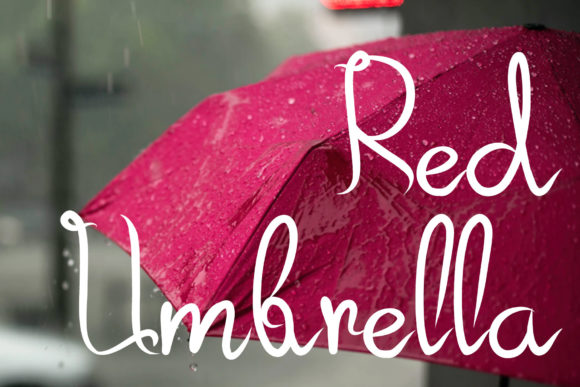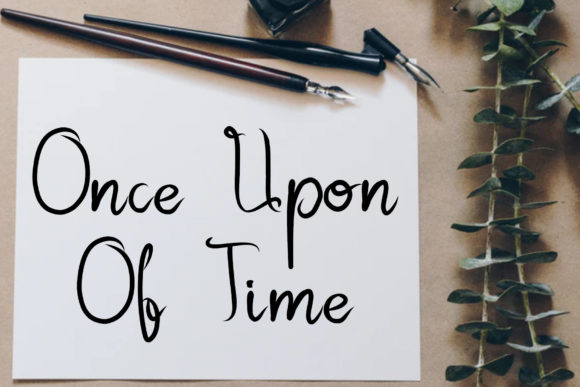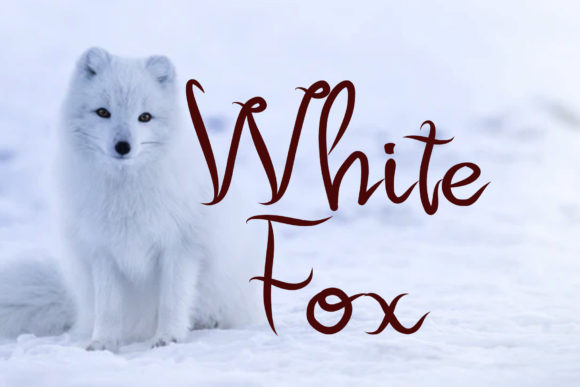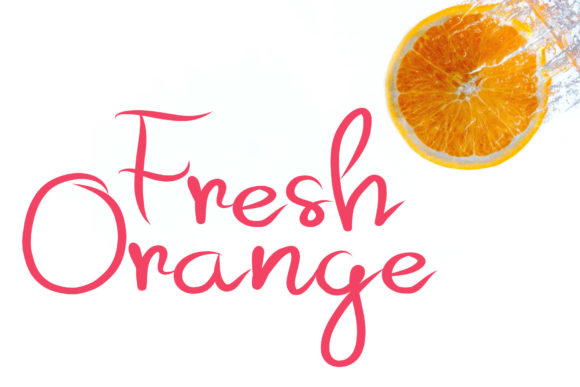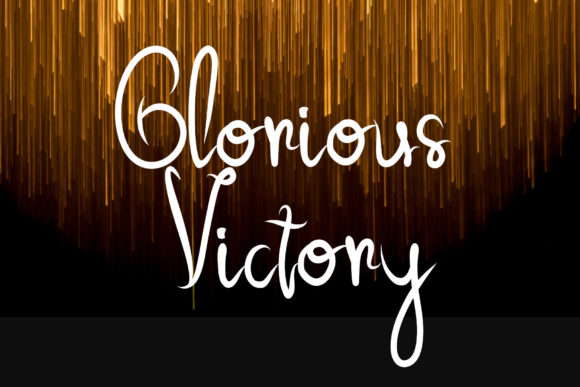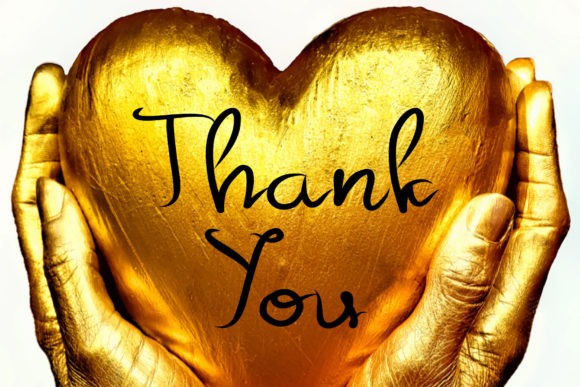
The Whimsical Charm of Butterfly Font: A Designer’s Delight
I’ll never forget the time I was working on a wedding invitation project, and my client asked for a font that was “whimsical, yet elegant.” I scoured the internet, tried out countless fonts, but nothing seemed quite right. That was until I stumbled upon the Butterfly Font. It was love at first sight! 💕 The beautiful, handwritten curves and playful flair instantly captured the essence of what my client was looking for.
A Personal Review of Butterfly Font
As a designer, I’m always on the lookout for fonts that can add a touch of personality to my projects. Here’s what I love about Butterfly Font:
• ✨ Beautiful, whimsical handwritten style that’s perfect for adding a touch of elegance to any design
• ✅ Highly versatile and can be used for a wide range of projects, from wedding invitations to business cards
• ✅ Easy to read and understand, even at smaller font sizes
• ✨ Unique and distinctive, making it perfect for designers who want to stand out from the crowd
Of course, no font is perfect, and Butterfly Font does have a few small quirks:
• 🤔 Some users may find the font a bit too ornate or over-the-top for certain projects
• ⚠️ May not be the best choice for body text or longer blocks of text, as it can be a bit too decorative
Butterfly Font was designed by a talented typographer who wanted to create a font that captured the beauty and elegance of nature. Inspired by the delicate curves and patterns of butterfly wings, the designer created a font that is both whimsical and sophisticated.
What is the best way to use Butterfly Font? Butterfly Font is best used for designs that need a touch of elegance and whimsy, such as wedding invitations, thank you cards, and greeting cards.
Is Butterfly Font suitable for body text? No, Butterfly Font is best used for headings and titles, as it can be a bit too decorative for longer blocks of text.